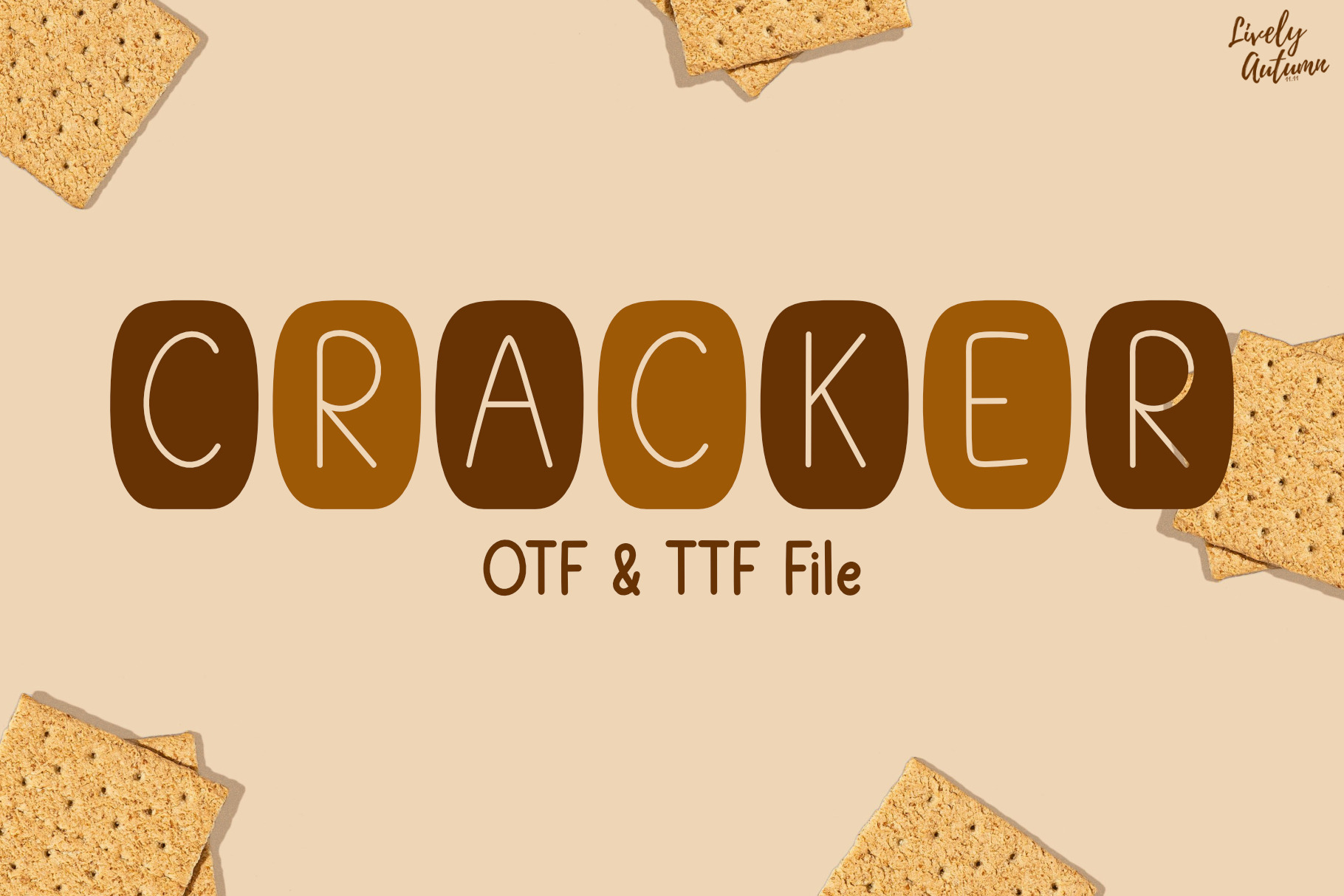
Cracker font |Decorative font
Cracker Font is a San Serif handwritten font written on a rectangle block. Perfect for your personal projects and various projects. From invitations to posters, social media graphics, journals, and much more.